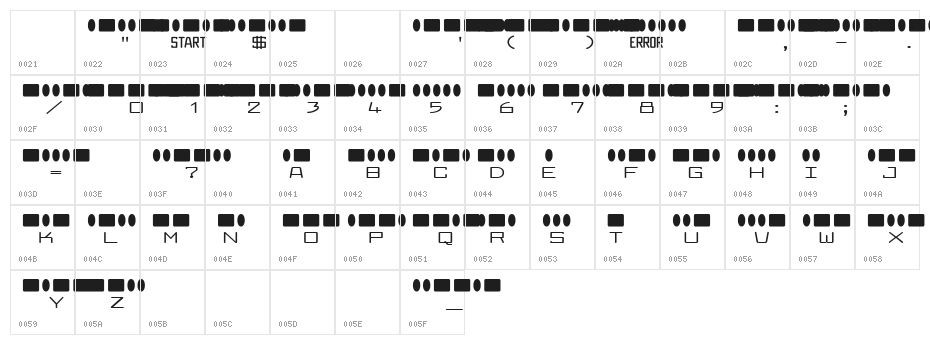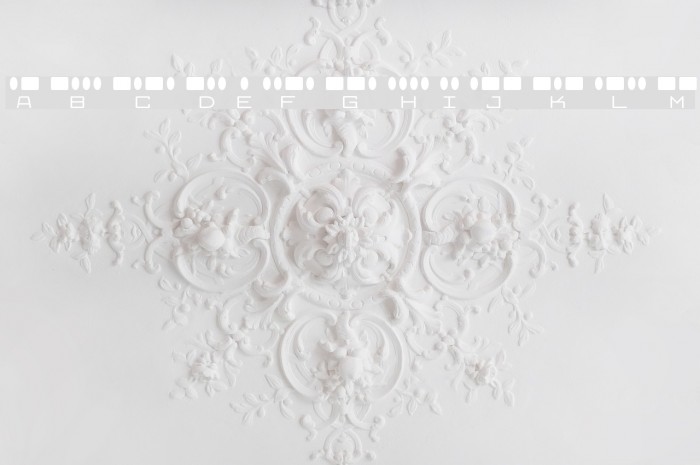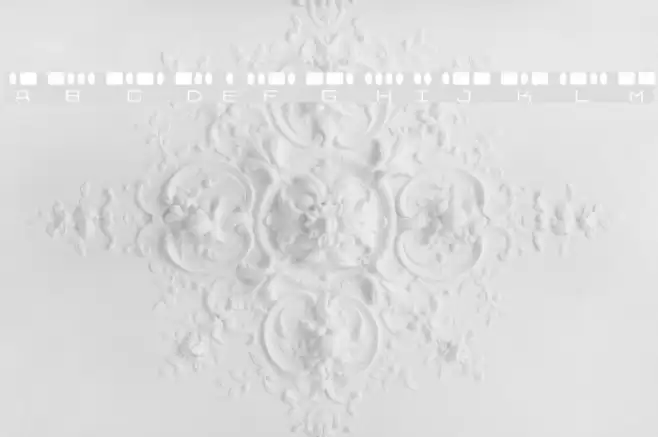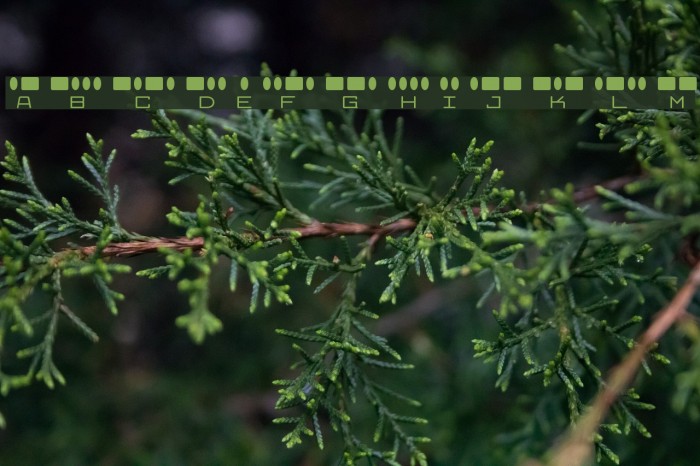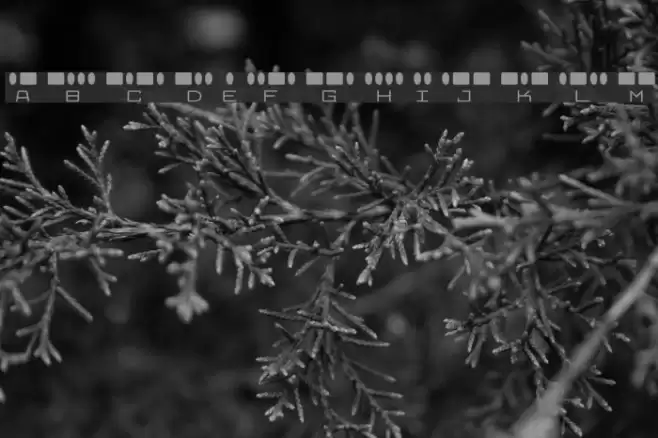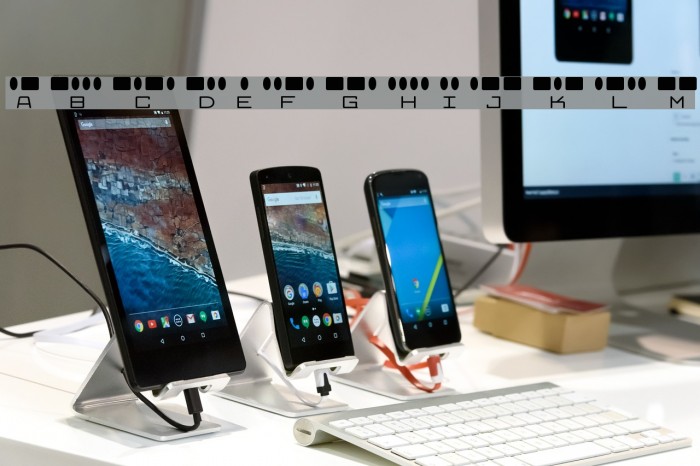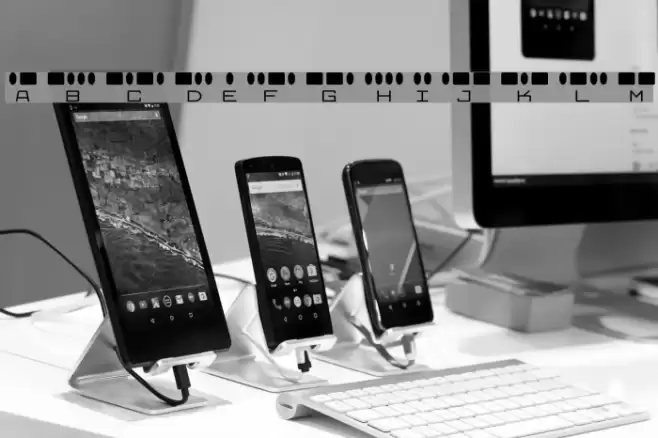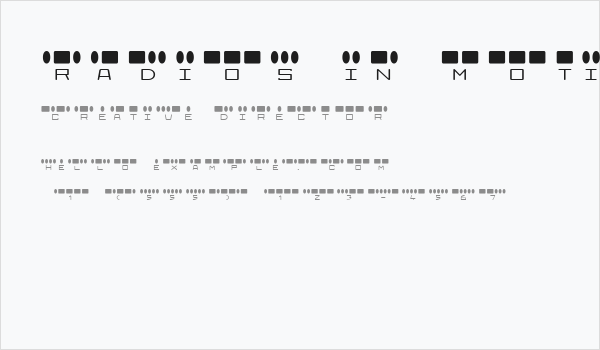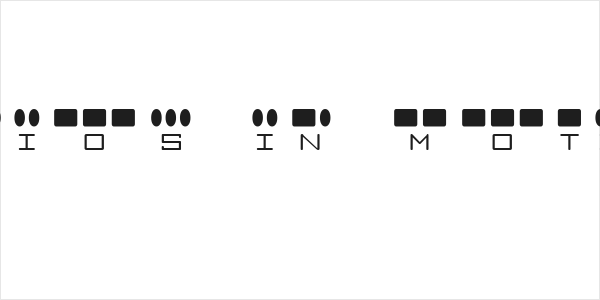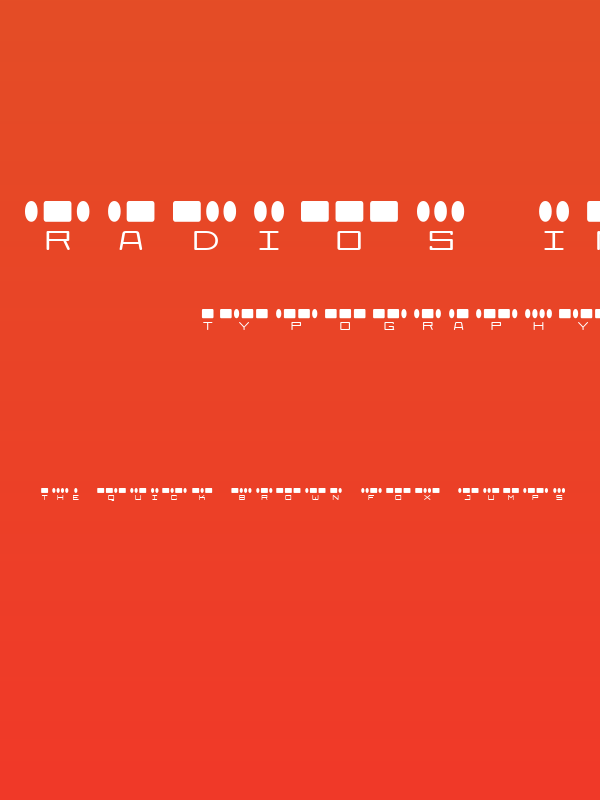
Radios in Motion Font
Radios in Motion Description
This font is a creative representation of Morse code, where each letter and number is depicted using a combination of dots and dashes. The design is minimalistic yet innovative, capturing the essence of Morse code communication. Each character is clearly defined, making it easy to distinguish between different letters and numbers. The font maintains a consistent style throughout, with uniform spacing and alignment. This unique approach to typography not only serves a functional purpose but also adds an artistic touch to any project.
| Use Case | Logos, Posters, Educational Materials |
| Proposed Projects | Ideal for educational materials on Morse code, themed event invitations, or creative design projects that require a unique and historical touch. |